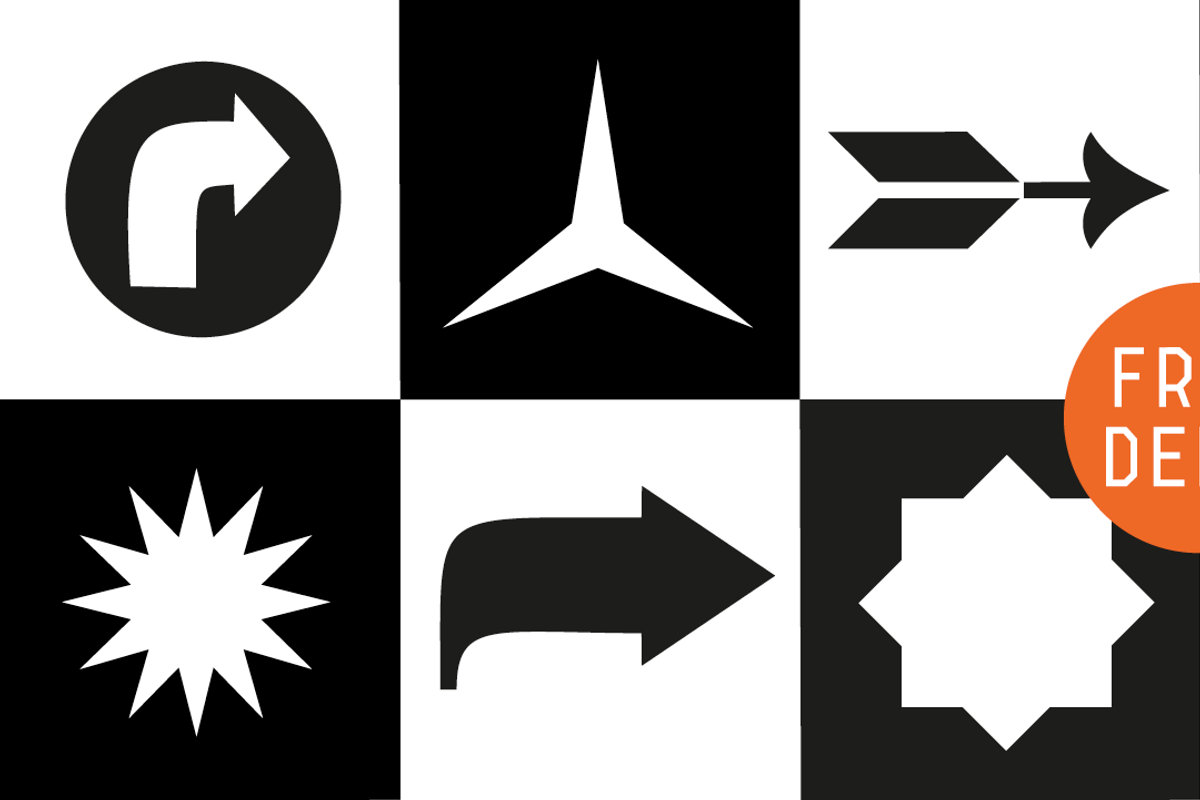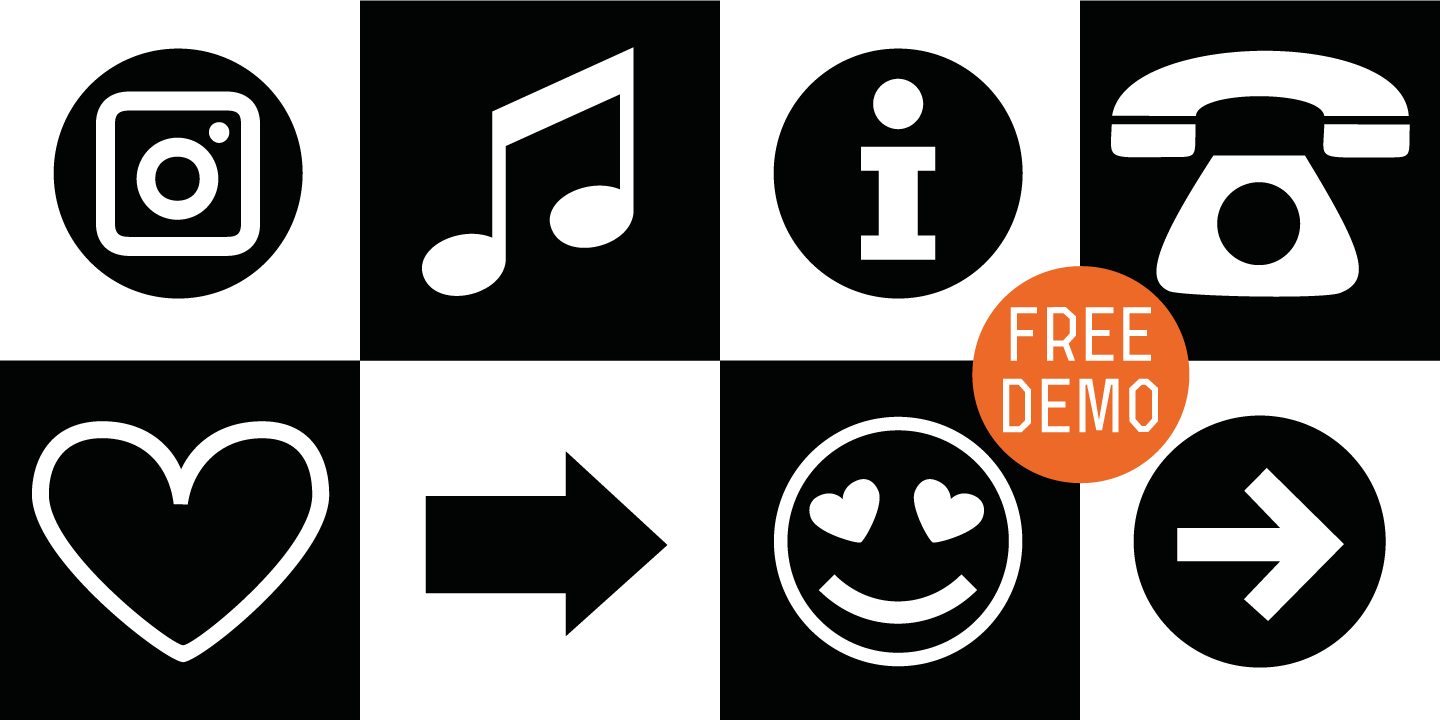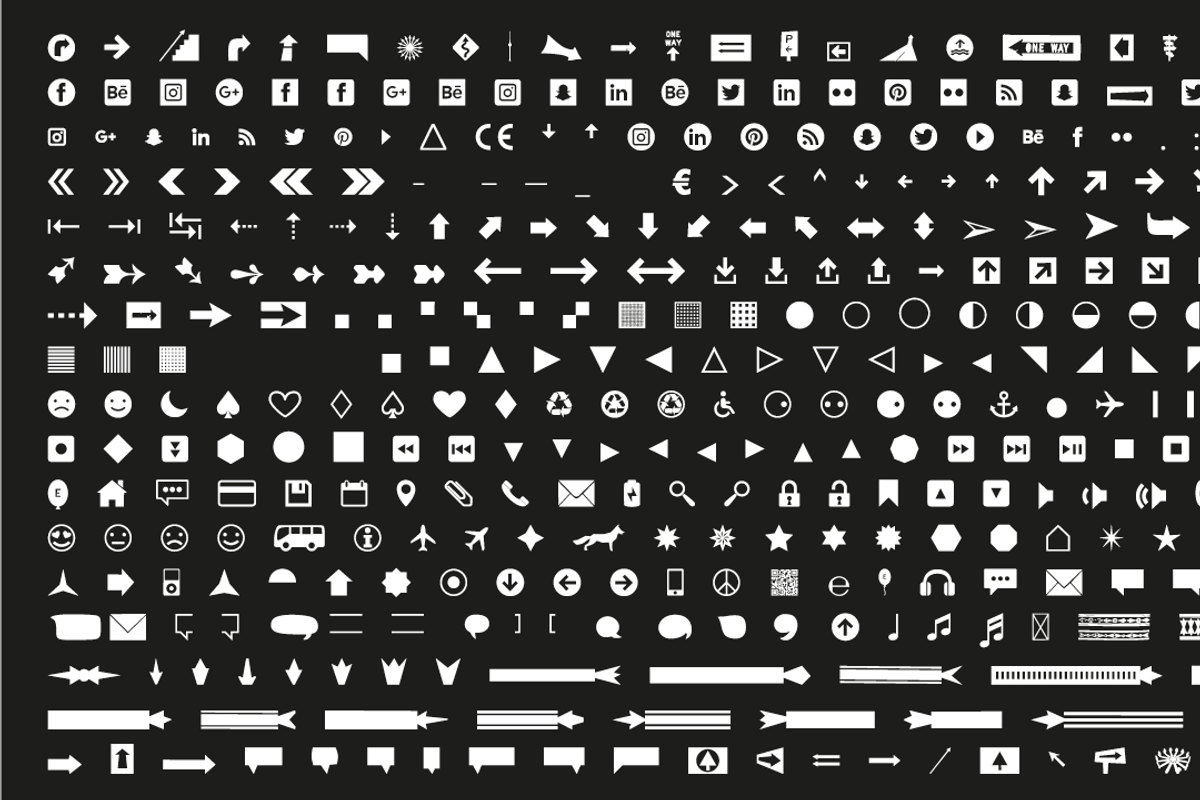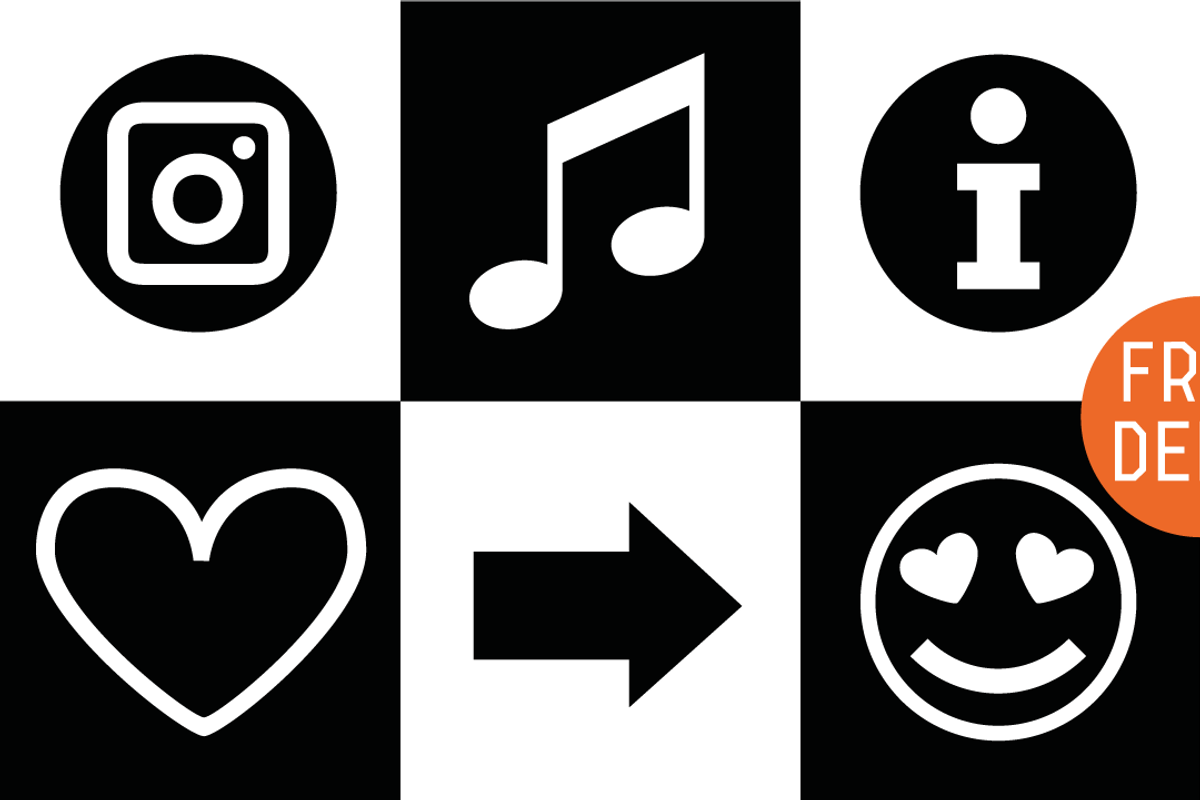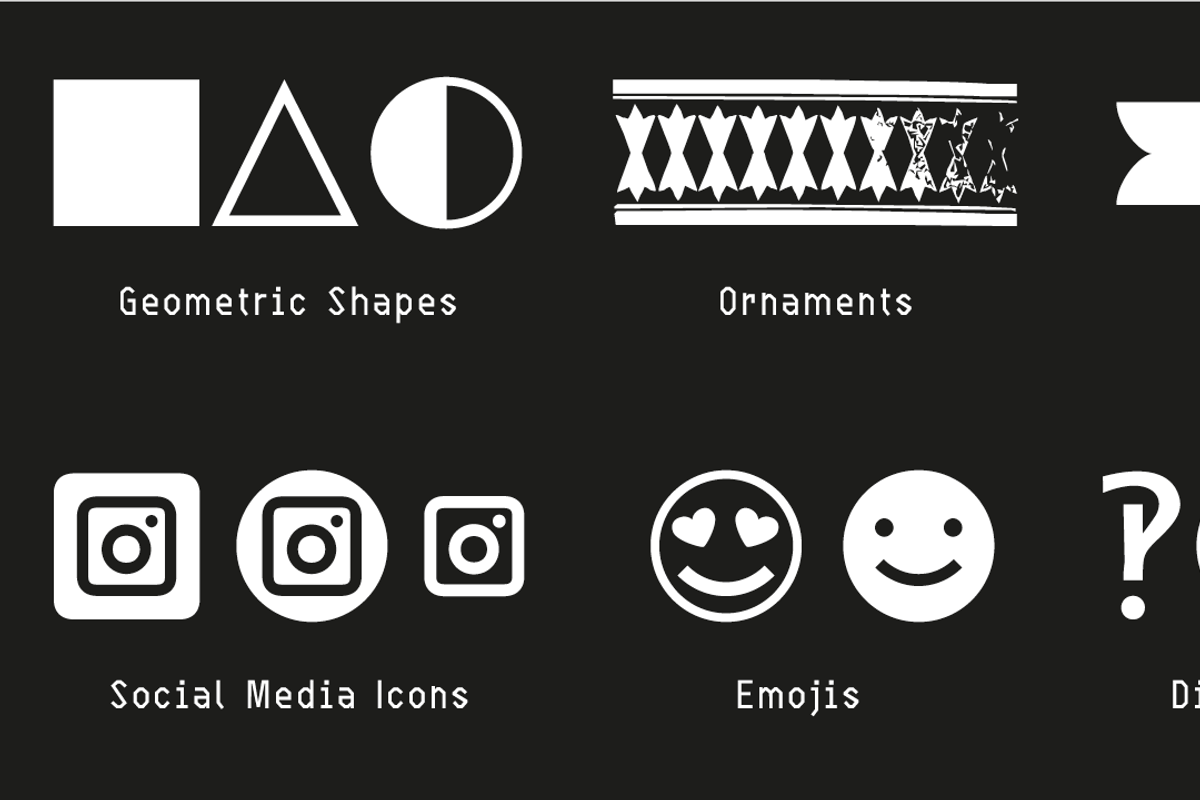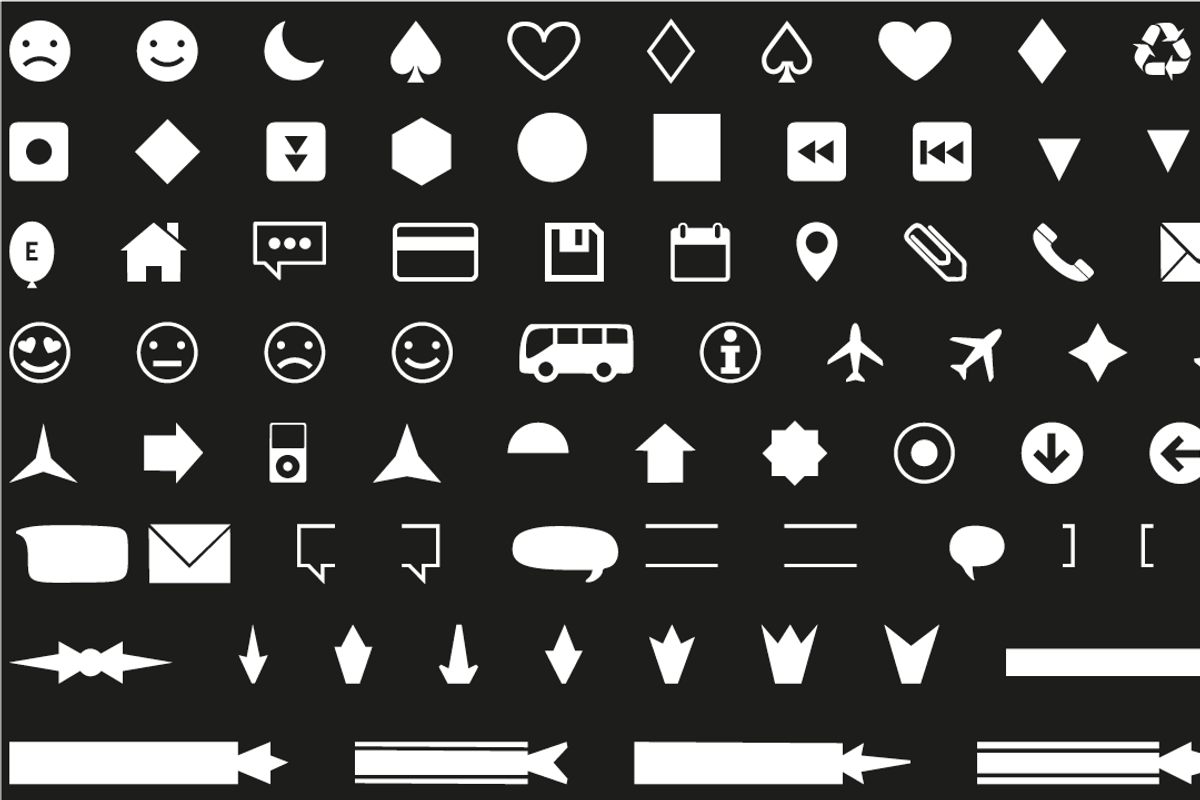
FONT | Icons Dingbats Symbols Set
The typeface “Icons Dingbats Symbols Set” is designed at 2019 for the font foundry Typo Graphic Design by Manuel Viergutz. The Basic Icons Set is a display typeface that inspired by the here and now.
431 glyphs / icons / decorative extras like icons, arrows, dingbats, emojis, symbols, ornaments, social media icons, sign of the zodiac, geometric shapes, catchwords, decorative ligatures (type the word #LOVE for ❤ or #SMILE for ☺ as OpenType-Feature dlig) and stylistic alternates (8 stylistic sets). For use in logos, magazines, posters, advertisement plus as webfont for decorative headlines. The font works best for display size.